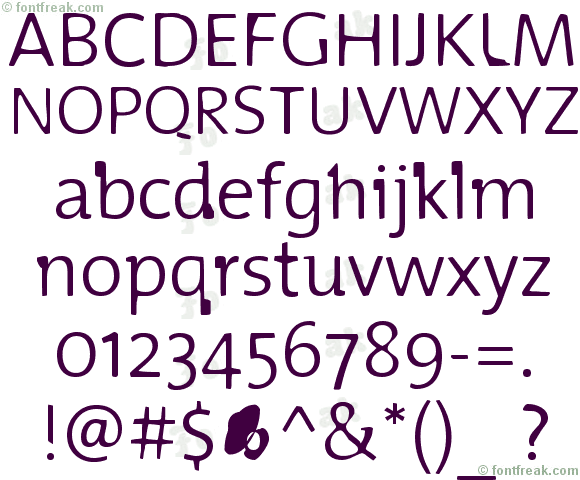
Blurmix
Blurmix is a unique display font created by Flava Fonts, released in 1999 as freeware. This font stands out in the realm of typography with its distinctive design that embodies a modern yet playful aesthetic. As a display font, Blurmix is characterized by its bold strokes and a striking contrast that adds dynamism to any project. The overall spacing is well-balanced, ensuring readability while maintaining an artistic flair. Its decorative elements, including slight curves and unique letterforms, contribute to its engaging appearance.
This font is particularly well-suited for a variety of creative applications. It shines in wedding invitations, where its stylish design can evoke a sense of elegance and celebration. Movie posters benefit from Blurmix's bold nature, as it can capture the viewer's attention and convey the film's essence. Additionally, restaurant menus can utilize this font to create a modern and inviting atmosphere, appealing to diners looking for a contemporary dining experience. Content creators and social media marketers will find Blurmix ideal for promotional graphics, ensuring their messages stand out in a crowded digital landscape.
The target audience for Blurmix includes graphic designers, small business owners, and content creators seeking a font that combines creativity with versatility. Its unique style can elevate branding materials, making them memorable and engaging.
What makes Blurmix truly exceptional is its ability to blend artistic expression with functionality. The font captures attention without overwhelming the viewer, making it an excellent choice for both print and digital media. With the Blurmix font free download, designers can experiment with this captivating typeface and incorporate it into their projects, bringing a fresh and modern touch to their typography. Whether you’re creating invitations, posters, or promotional materials, Blurmix is a font that will undoubtedly enhance your design.